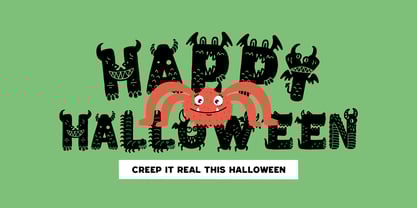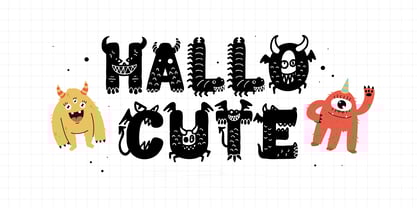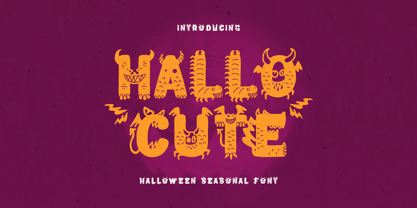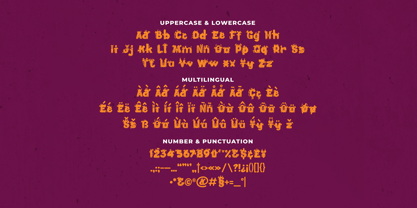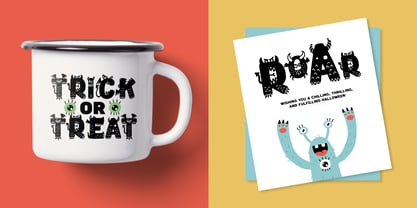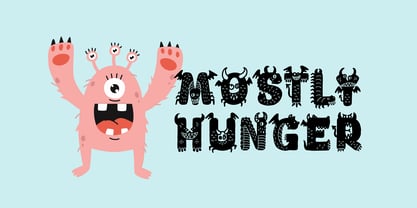
Hallocute
by Imoodev
The Hallocute Font Family was designed by Aulia Savira Putri and published by Imoodev. Hallocute contains 1 styles. More about this family
Hallocute is a playful, monster-themed typeface full of spooky charm and quirky personality. Each letter is dressed up with monster elements like eyeballs, horns, fangs, and tentacles—giving off a fun Halloween vibe. The letters are thick, rounded, and black with decorative details that resemble textures like scales, fur, and stitches.
This incredibly scary monster character Hallocute font is the perfect choice to add a touch of horror and dark whimsy to your monster or Halloween themed designs.
Perfect for spooky party invitations, haunted house posters, children’s books, monster-themed parties, toy packaging, fun branding.